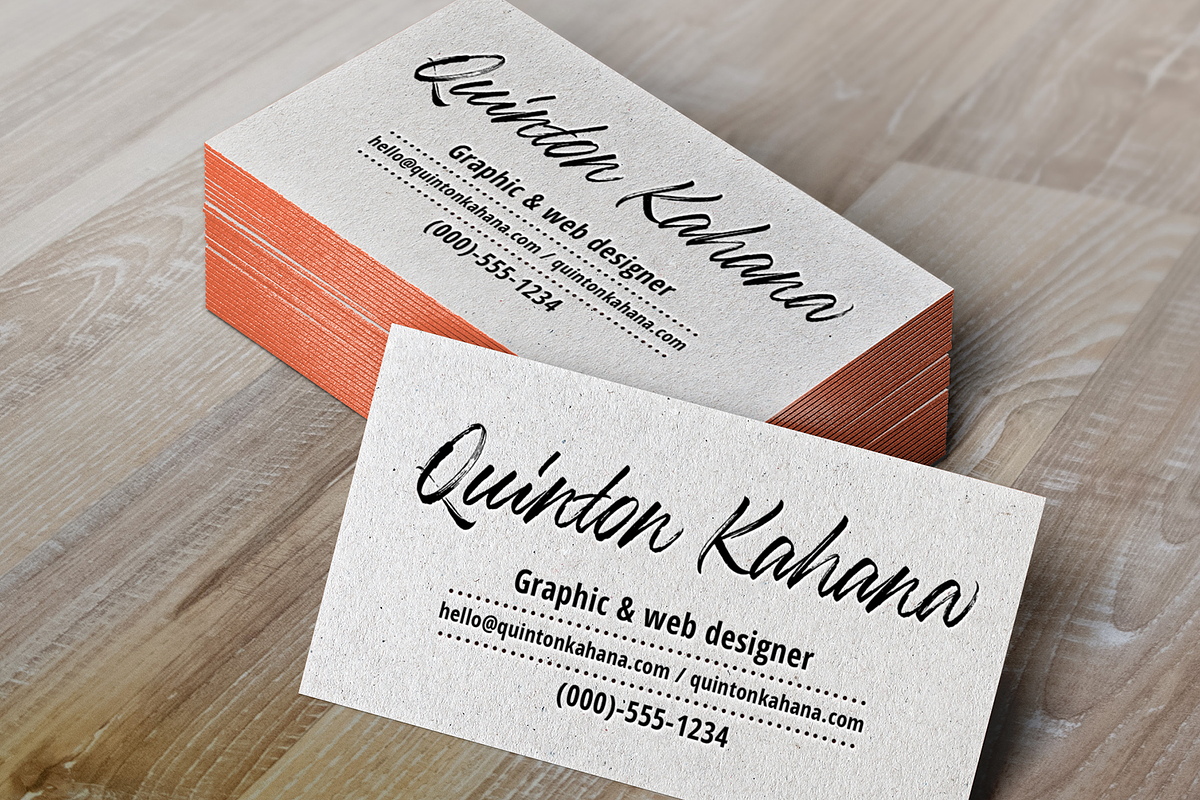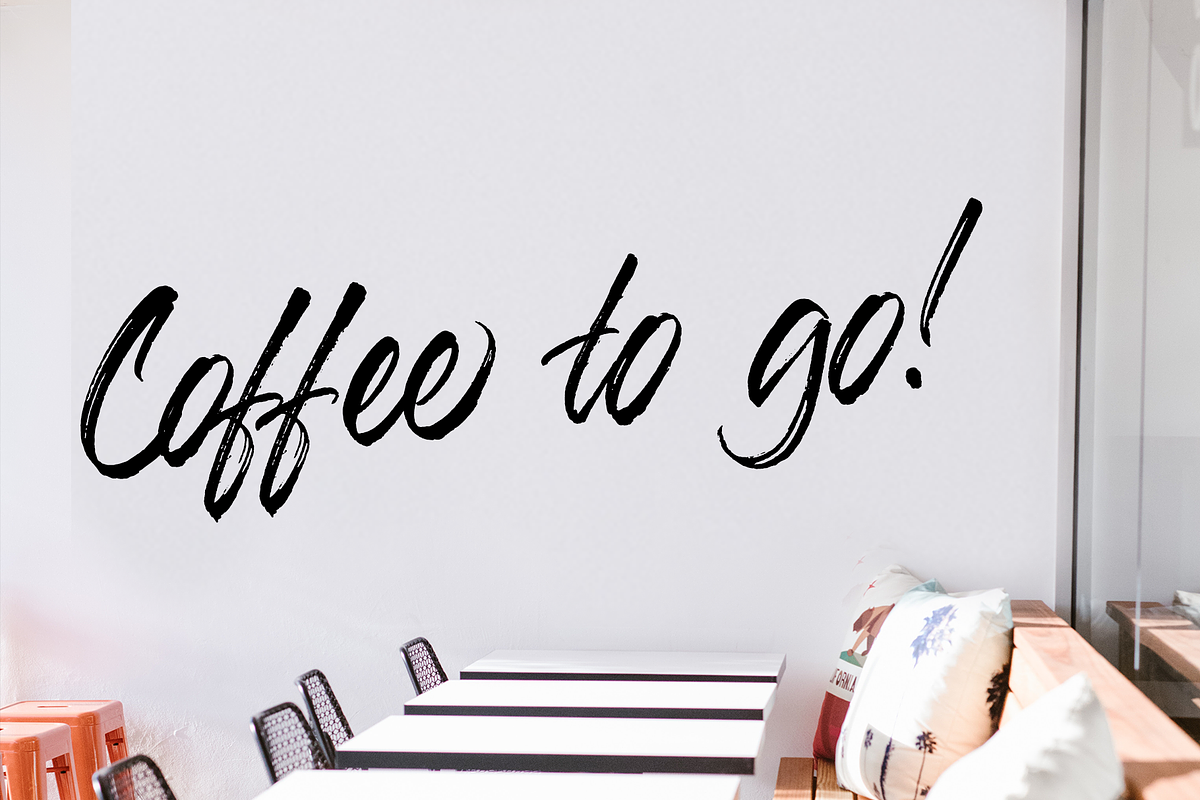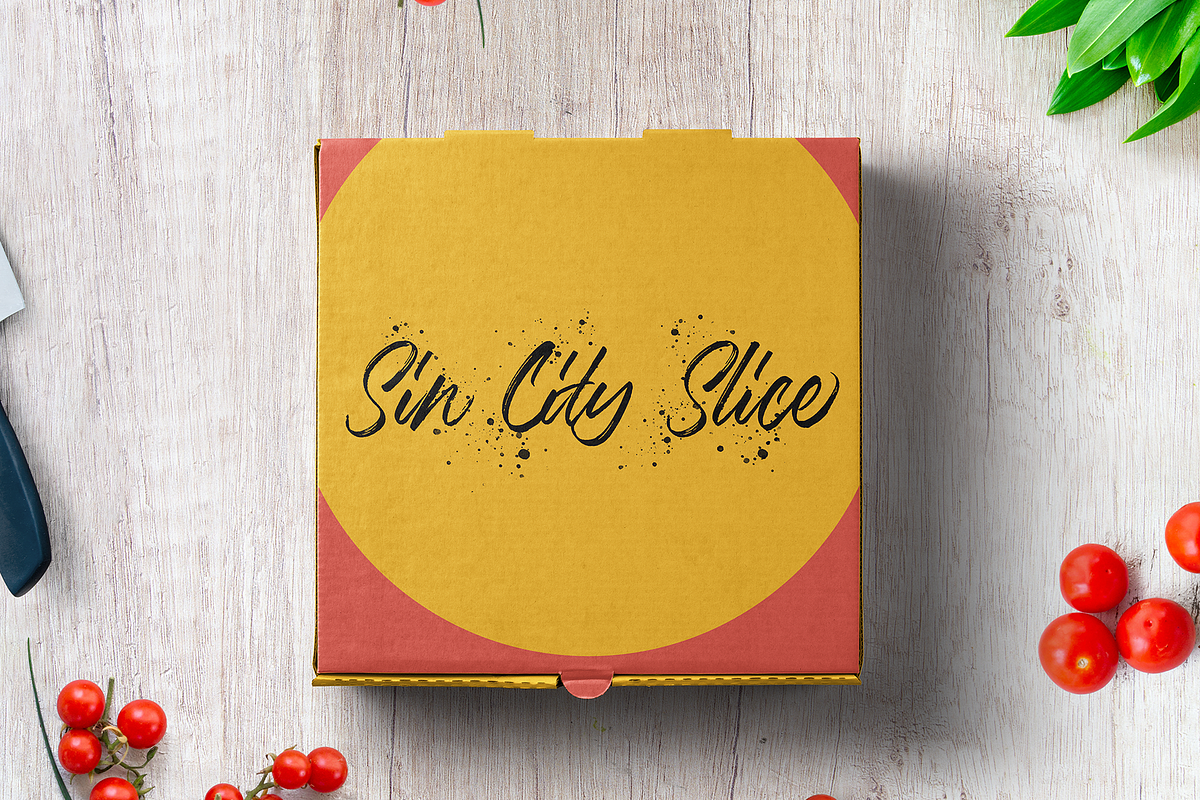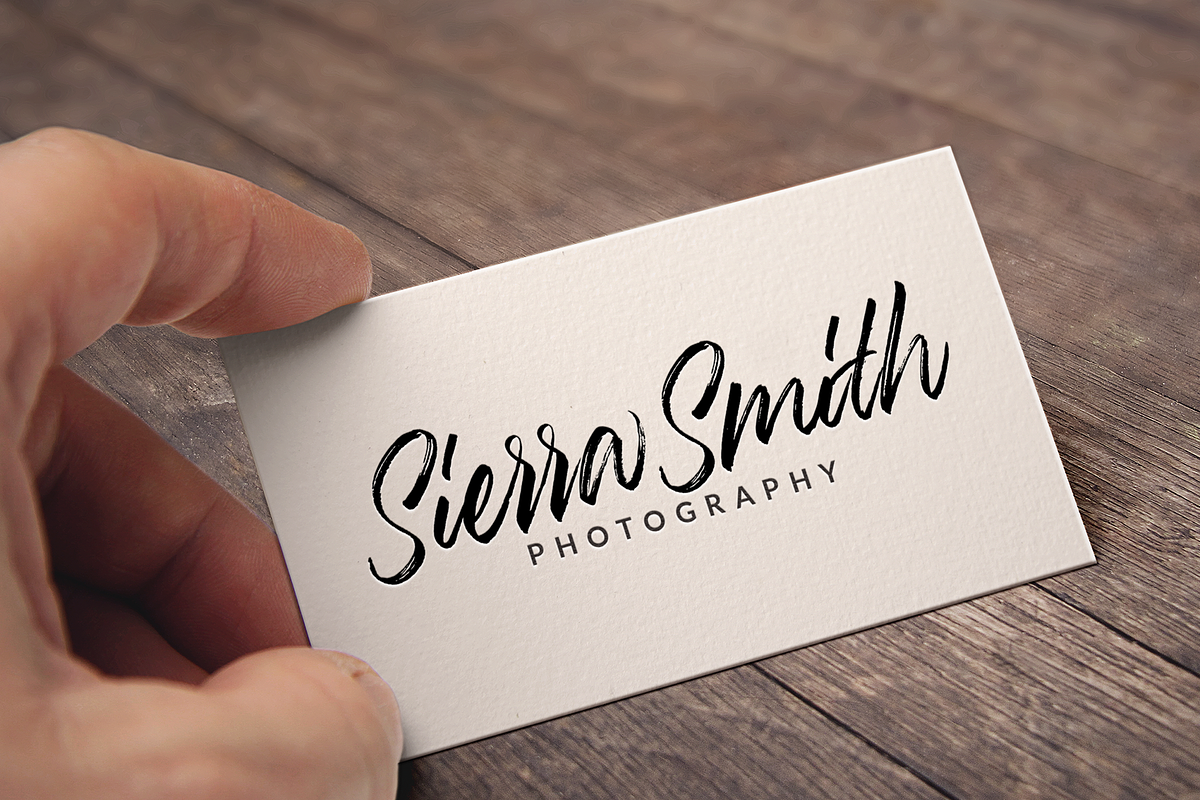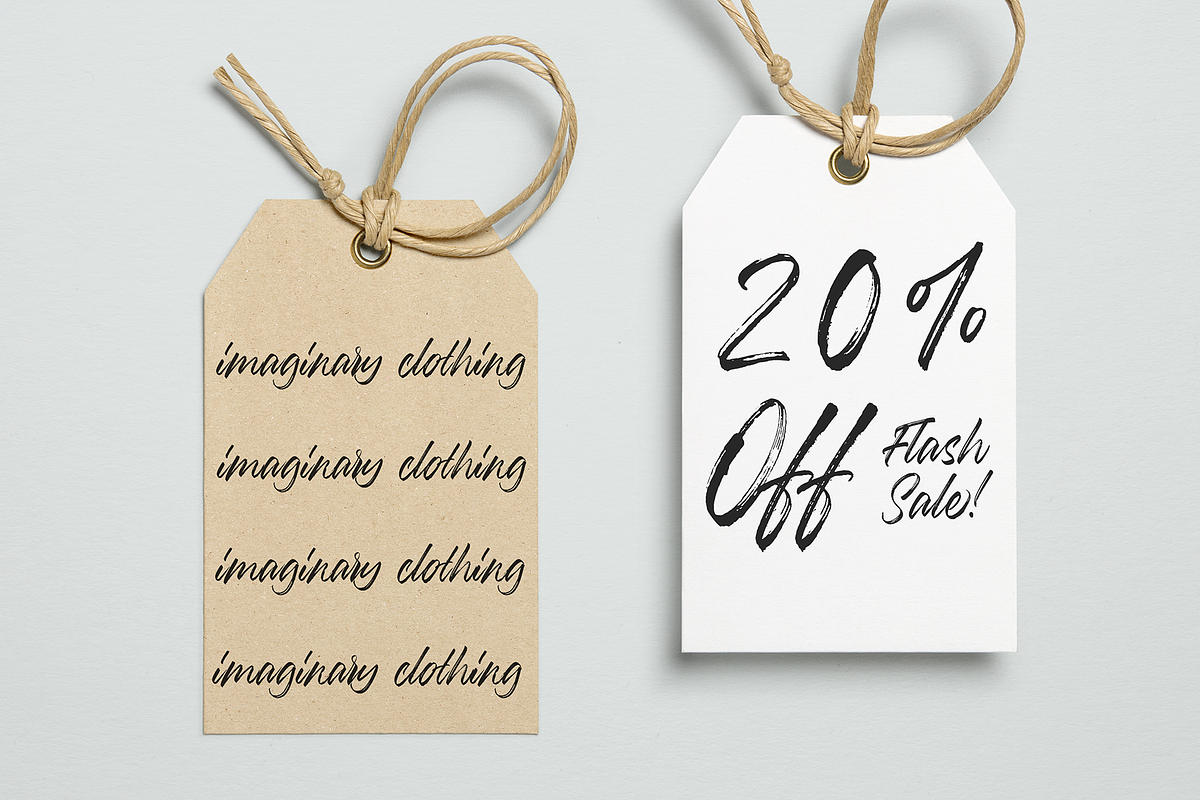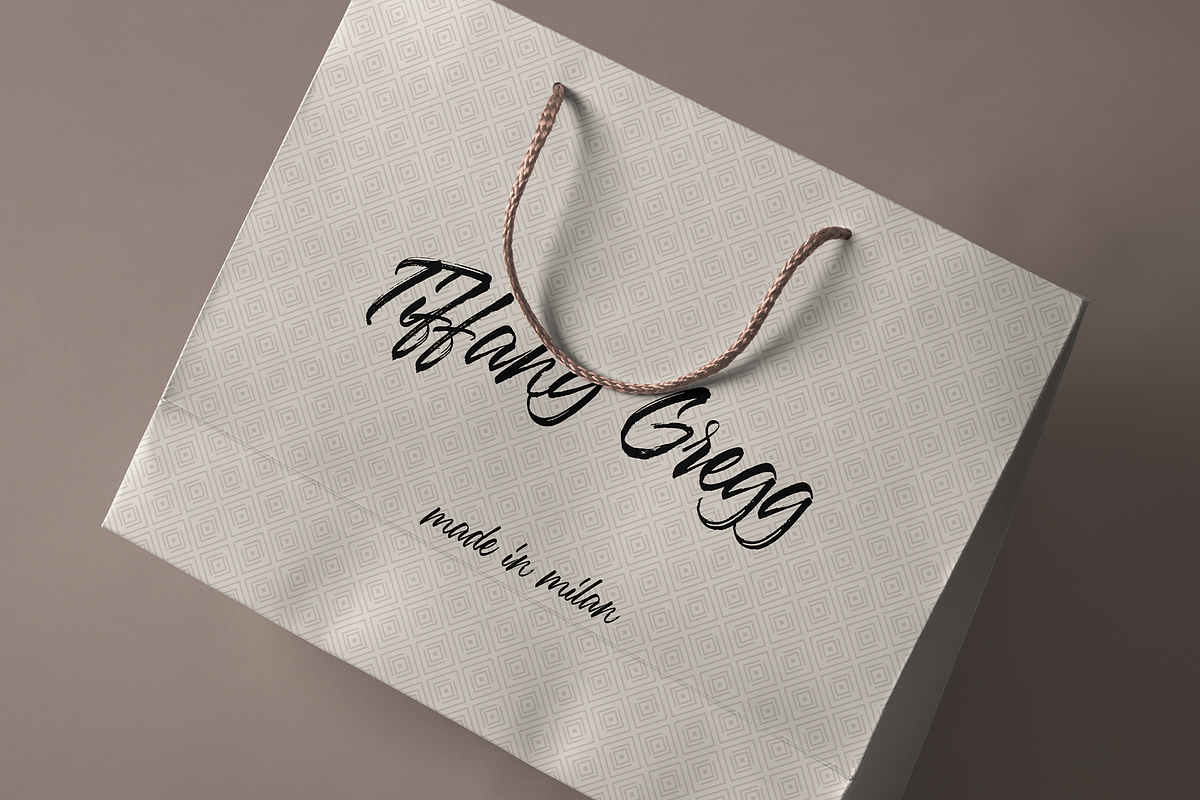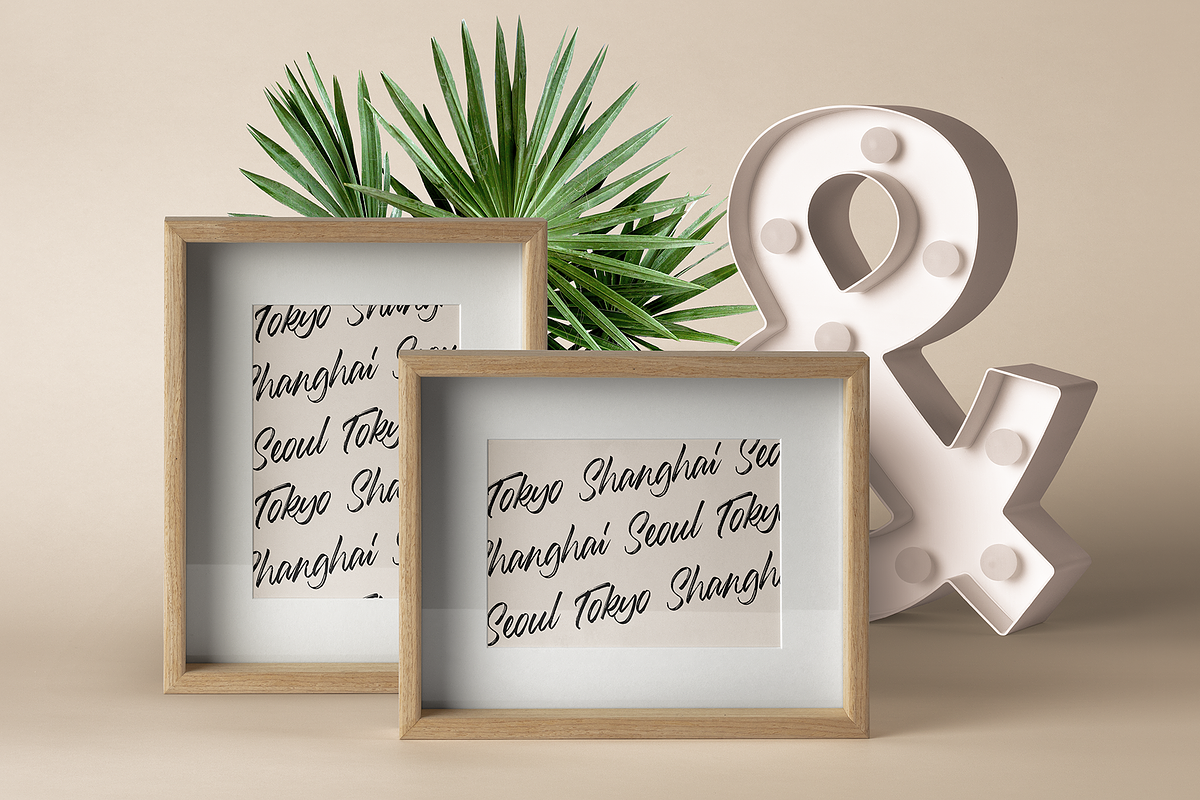
Tiffany Font
Introducing: Tiffany!
Tiffany is a Script with Gorgeous Textures that highlight the Beauty of each individual Letter. From the few familiar ligatures all the way to the tiniest ink splatter - Every part of this Unique Font has been carefully considered during the Creative Process. It is an attention to detail that Your Project not only needs, but most certainly deserves!
Why Tiffany Font is worth a look
Tiffany Font by Calligraphy DK fits naturally into Branding, posters, packaging, typography.